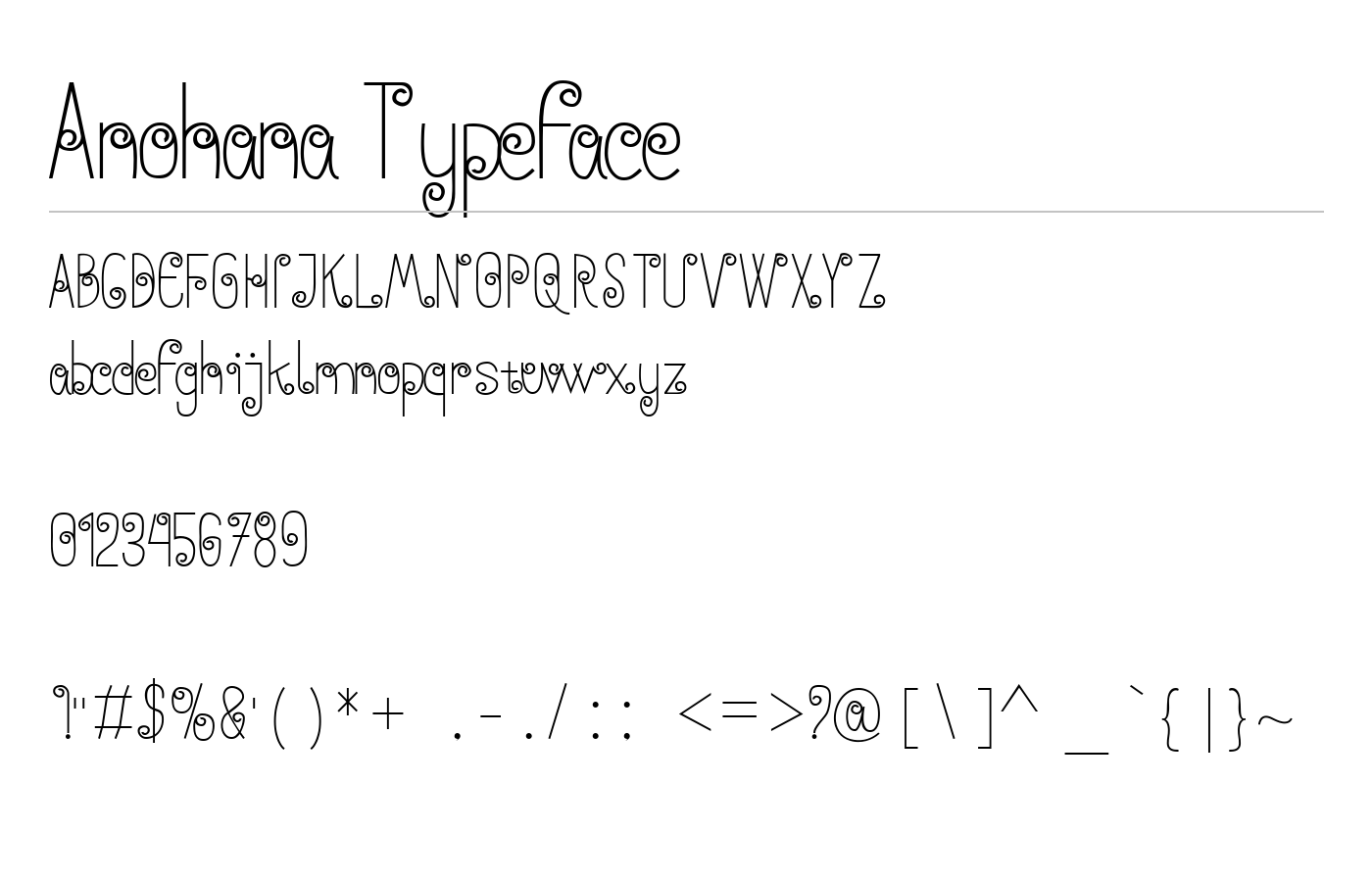
Anohana Typeface is a light, narrow sans serif font with a playful, whimsical personality highlighted by its distinctive curled terminals and delicate strokes. Its tall, airy letterforms and consistent thin weight make it ideal for creative, informal projects such as children’s books, greeting cards, or decorative headlines, where a quirky and charming feel is desired.